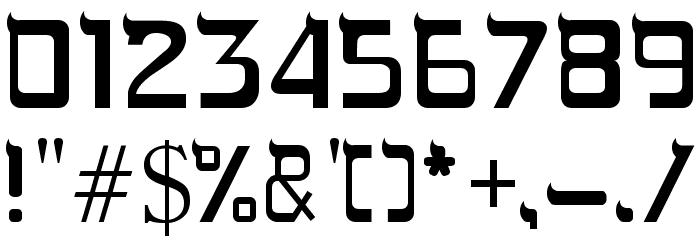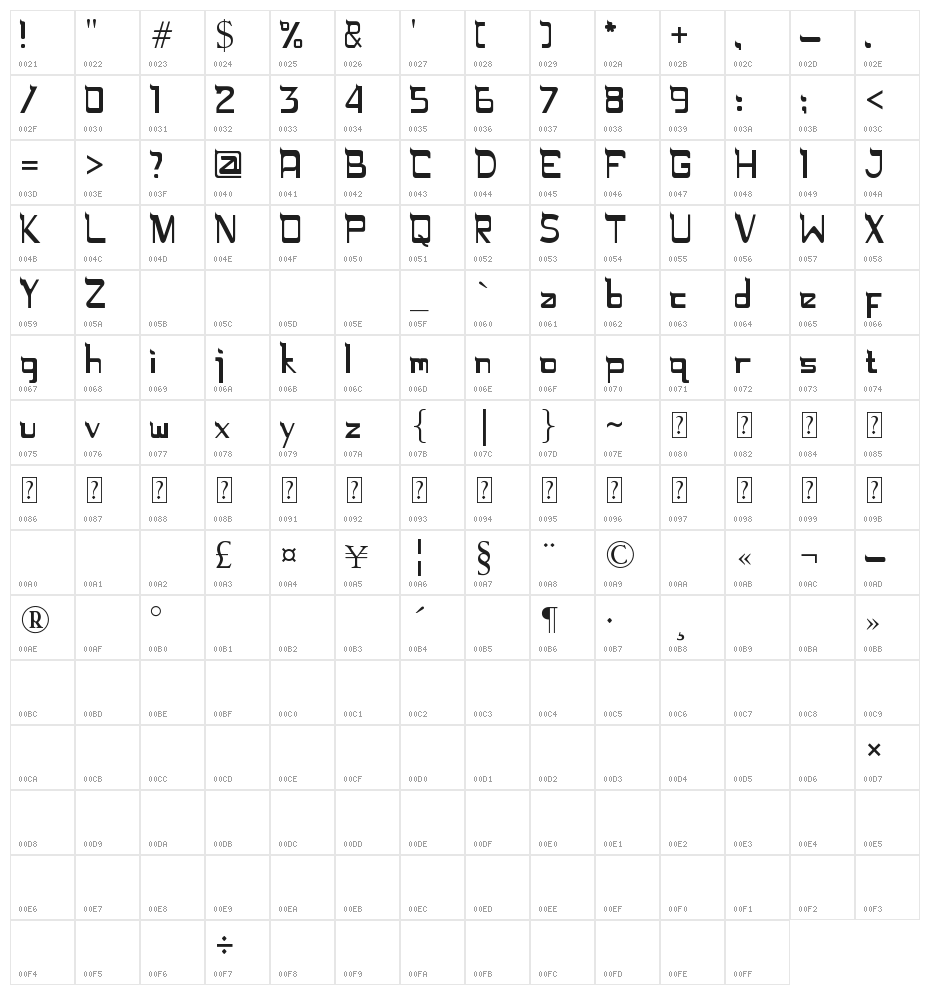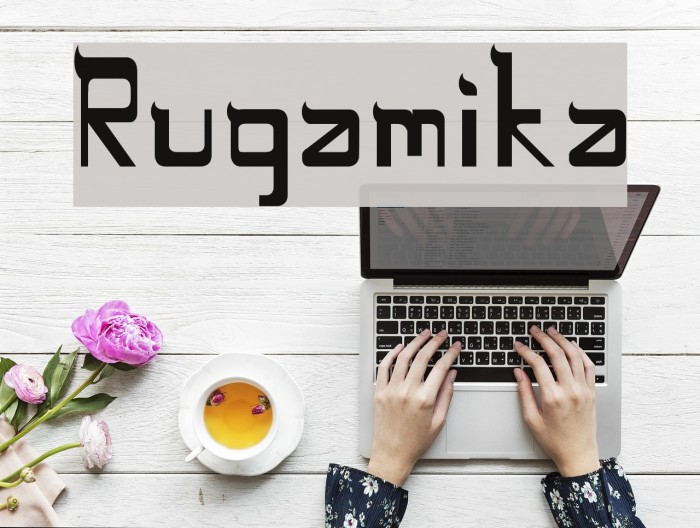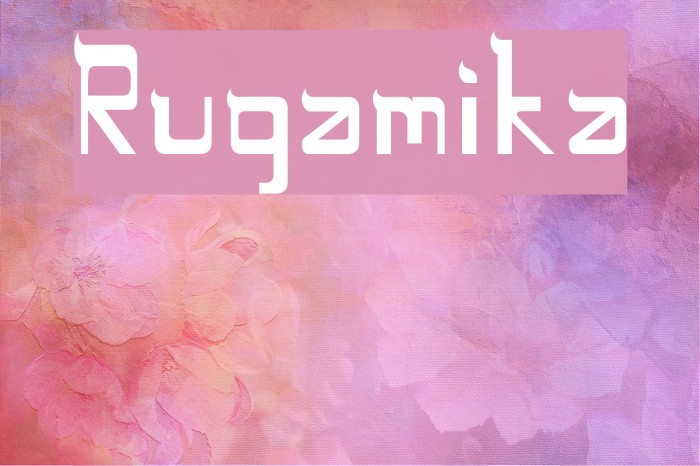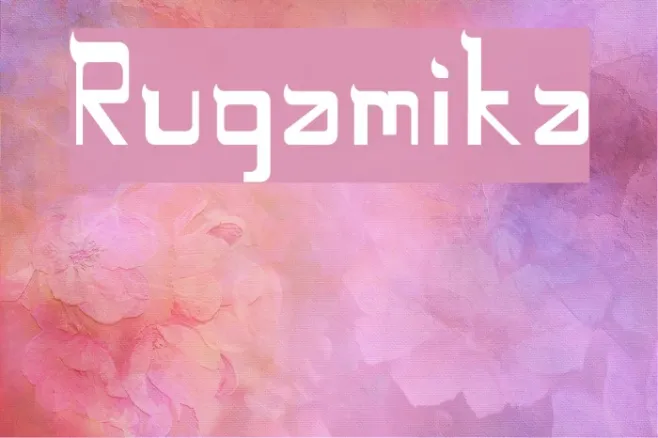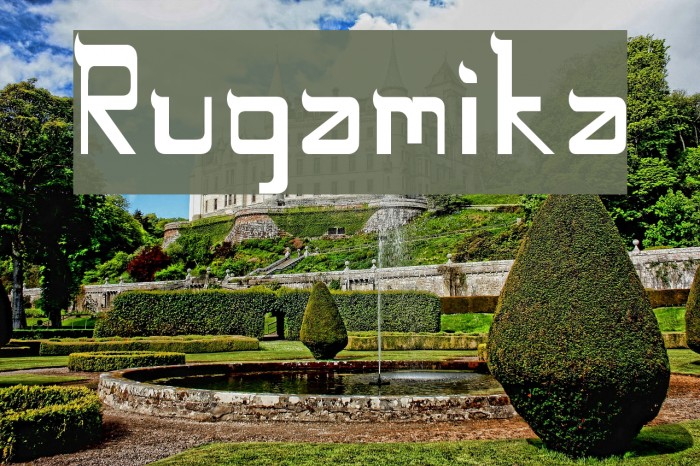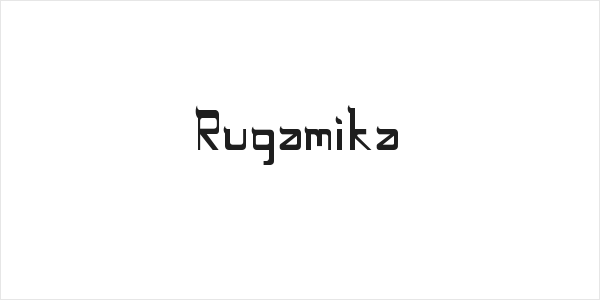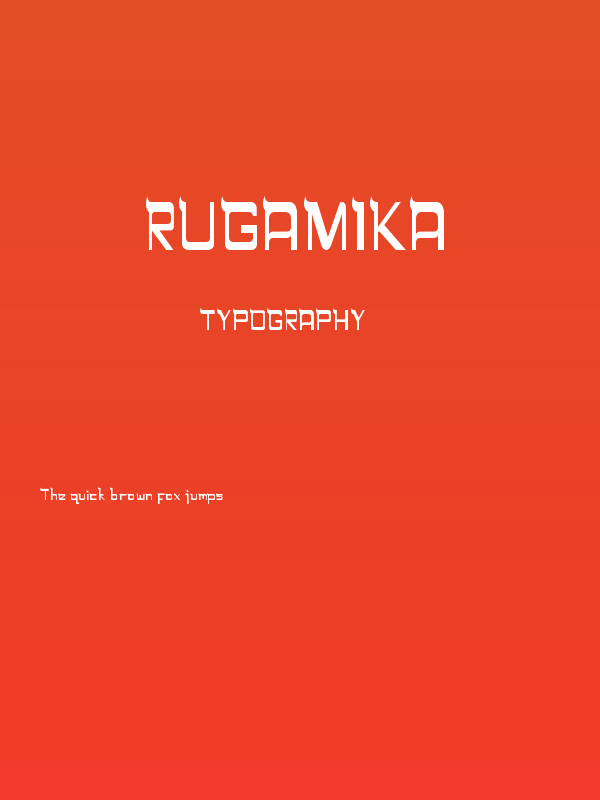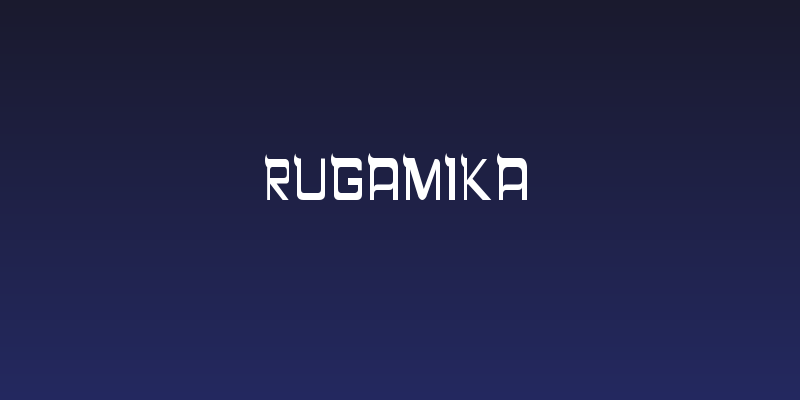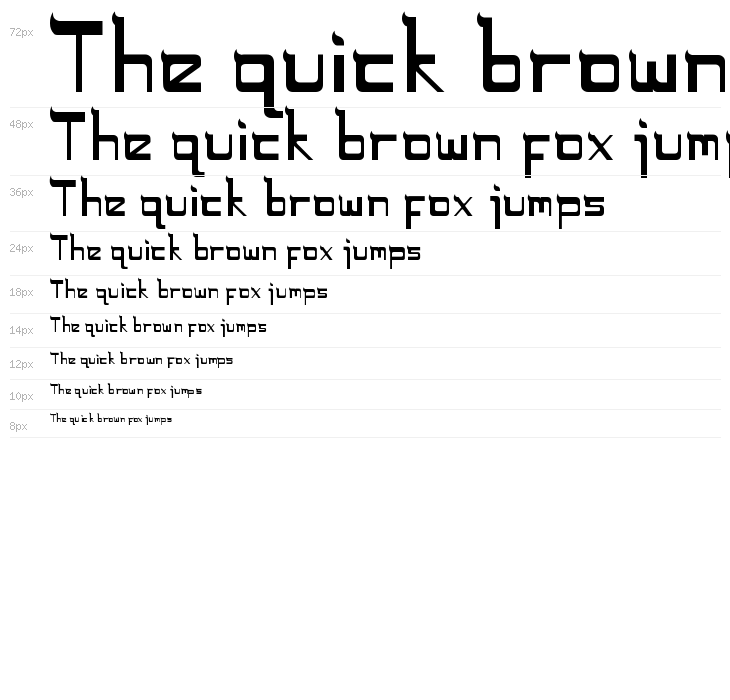
Rugamika Font
Rugamika Description
This font features a unique and modern design with a geometric and slightly futuristic appearance. The characters are bold with distinct, sharp edges and a consistent stroke width, giving it a strong presence. The uppercase letters are particularly angular, while the lowercase letters maintain a similar style with slightly softer curves. The numerals are clear and easily distinguishable, matching the overall aesthetic. Special characters are designed to complement the letters, maintaining the same bold and angular style. This font is ideal for projects that require a contemporary and eye-catching look.
| Proposed Projects | Ideal for branding, posters, and digital media that require a modern and striking appearance. |